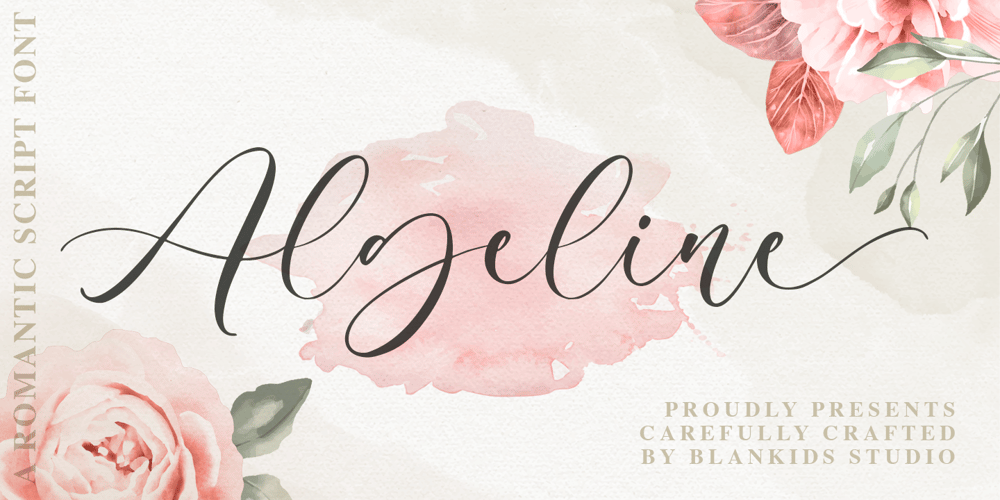
Algeline
Algeline font
Algeline Font Family was designed by Bangkit Tri Setiadi and published by Blankids. Algeline contains 1 styles and family package options. Introducing of our new product the name is Algeline a Romantic Script Font. Algeline inspired by modern calligraphy style this font is a fun theme very good for display, tshirt design, craft, quote sign, logotype and etcFEATURES : Uppercase Lowercase Number Punctuation Multilingual PUA Encode Opentype